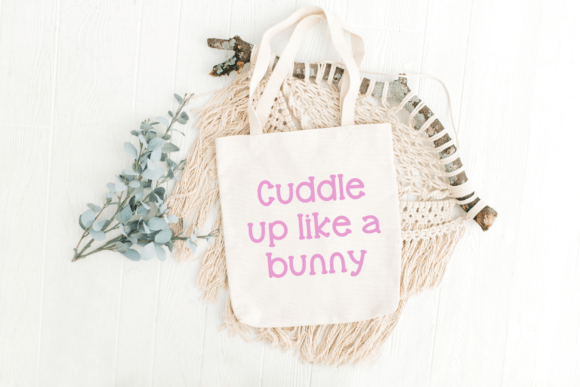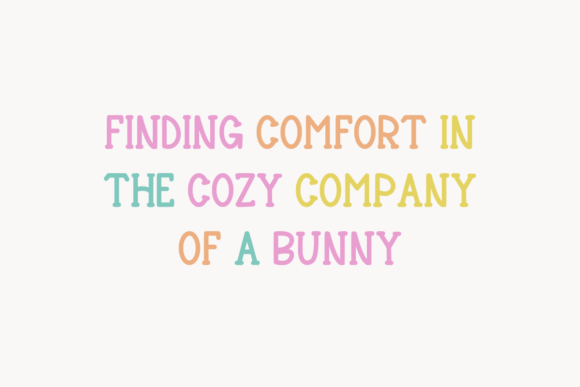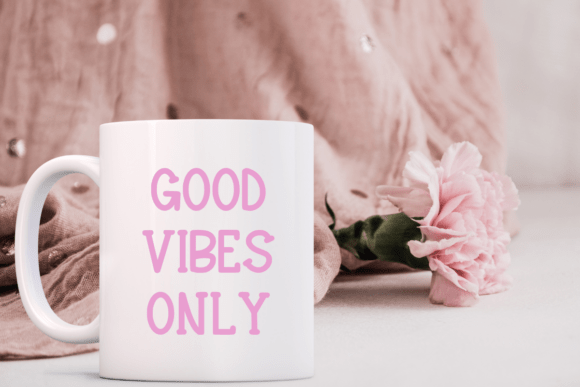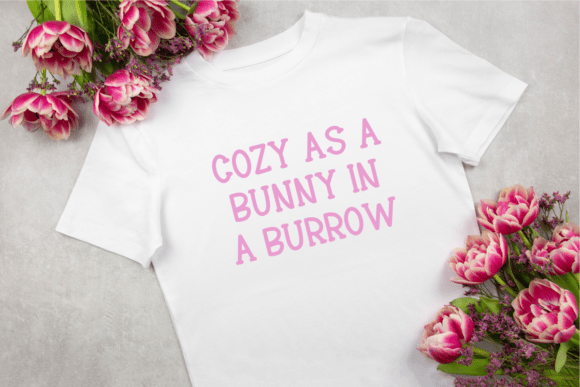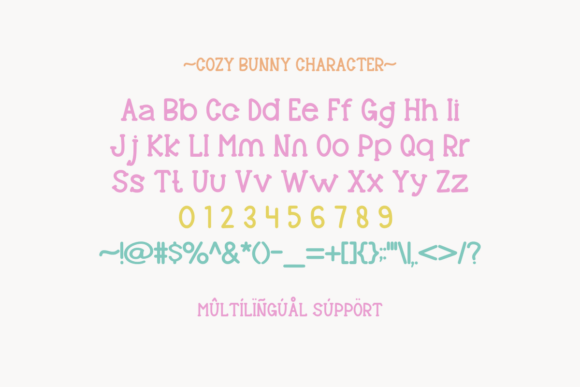
Introducing Cozy Bunny Font: The Perfect Playful Handwritten Font for Crafters and Designers
Are you a crafter, designer, or maker looking for a font that can add a touch of playfulness and friendliness to your projects? Look no further than Cozy Bunny Font! This delightful handwritten font is perfect for a wide range of creative endeavors, from crafts and planners to KDP, stickers, greeting cards, and more.
What Makes Cozy Bunny Font So Special?
Cozy Bunny Font is a unique and charming handwritten font that is sure to capture the hearts of crafters, designers, and makers alike. Its cute and friendly style makes it an ideal choice for anyone looking to add a personal touch to their projects. Whether you’re creating custom stickers, greeting cards, or planners, Cozy Bunny Font is the perfect choice.
Perfect for Cricut, Sublimation, and DIY Projects
Cozy Bunny Font is designed to work seamlessly with popular cutting machines like Cricut, making it easy to create custom vinyl decals, iron-on designs, and more. It’s also perfect for sublimation projects, such as custom mugs, tumblers, and t-shirts. Additionally, Cozy Bunny Font is ideal for creative DIY projects, such as handmade cards, scrapbooking, and journaling.
Endless Possibilities for Crafters and Designers
The versatility of Cozy Bunny Font is one of its most appealing features. Here are just a few ideas to get you started:
- Create custom stickers and labels for your planner or journal
- Design personalized greeting cards and gift tags
- Make custom vinyl decals for your laptop, water bottle, or car
- Develop unique sublimation designs for mugs, tumblers, and more
- Enhance your scrapbooking and journaling projects with custom titles and headings
Why Choose Cozy Bunny Font?
So why should you choose Cozy Bunny Font for your next project? Here are just a few reasons:
- Unique and playful style: Cozy Bunny Font has a one-of-a-kind, handwritten style that’s sure to stand out
- Ease of use: This font is easy to read and works well in a variety of contexts
- Versatility: Cozy Bunny Font can be used for a wide range of projects, from crafts and planners to KDP and sublimation
- Cute and friendly vibe: This font is perfect for projects that require a touch of whimsy and playfulness
Tips for Using Cozy Bunny Font
Here are a few tips for getting the most out of Cozy Bunny Font:
- Experiment with different sizes and colors: Cozy Bunny Font looks great in a variety of sizes and colors, so don’t be afraid to get creative
- Pair with other fonts: Try pairing Cozy Bunny Font with other fonts to create unique and interesting combinations
- Use for titles and headings: Cozy Bunny Font works well for titles and headings, adding a touch of personality to your projects
If you’re looking for a playful and friendly font that’s perfect for crafts, planners, KDP, stickers, greeting cards, and more, look no further than Cozy Bunny Font. With its cute and unique style, this font is sure to become a favorite among crafters, designers, and makers. So why wait? Download Cozy Bunny Font today and start creating your own unique projects!
Whether you’re a seasoned designer or a crafter just starting out, Cozy Bunny Font is the perfect choice for anyone looking to add a touch of whimsy and playfulness to their projects. So go ahead, get creative, and see what amazing things you can make with Cozy Bunny Font!